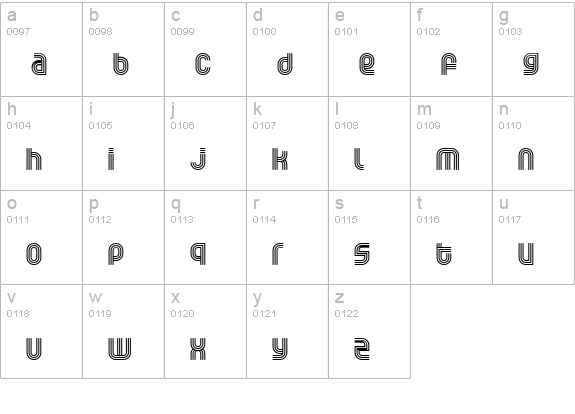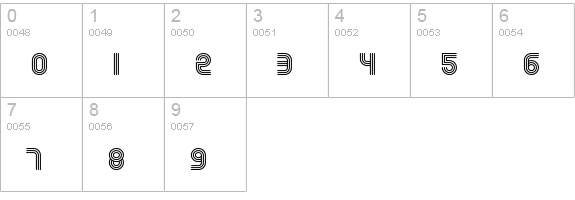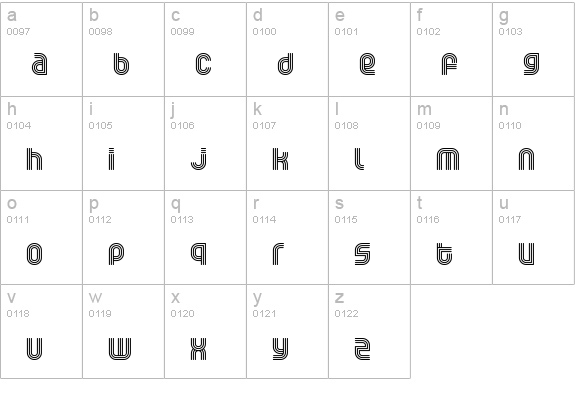
Rolloglide Font Details
Introducing Rolloglide font, a modern and stylish typeface that exudes elegance and sophistication. With its sleek lines and smooth curves, Rolloglide is perfect for adding a touch of class to your designs. Whether you're working on a logo, branding, or any other creative project, this font will elevate your work to the next level. What's even better is that Rolloglide font is available for free download at FontsMarket.com. Yes, you read that right - you can get your hands on this stunning font without spending a dime. So why wait? Download Rolloglide font today and start creating beautiful designs that will leave a lasting impression.